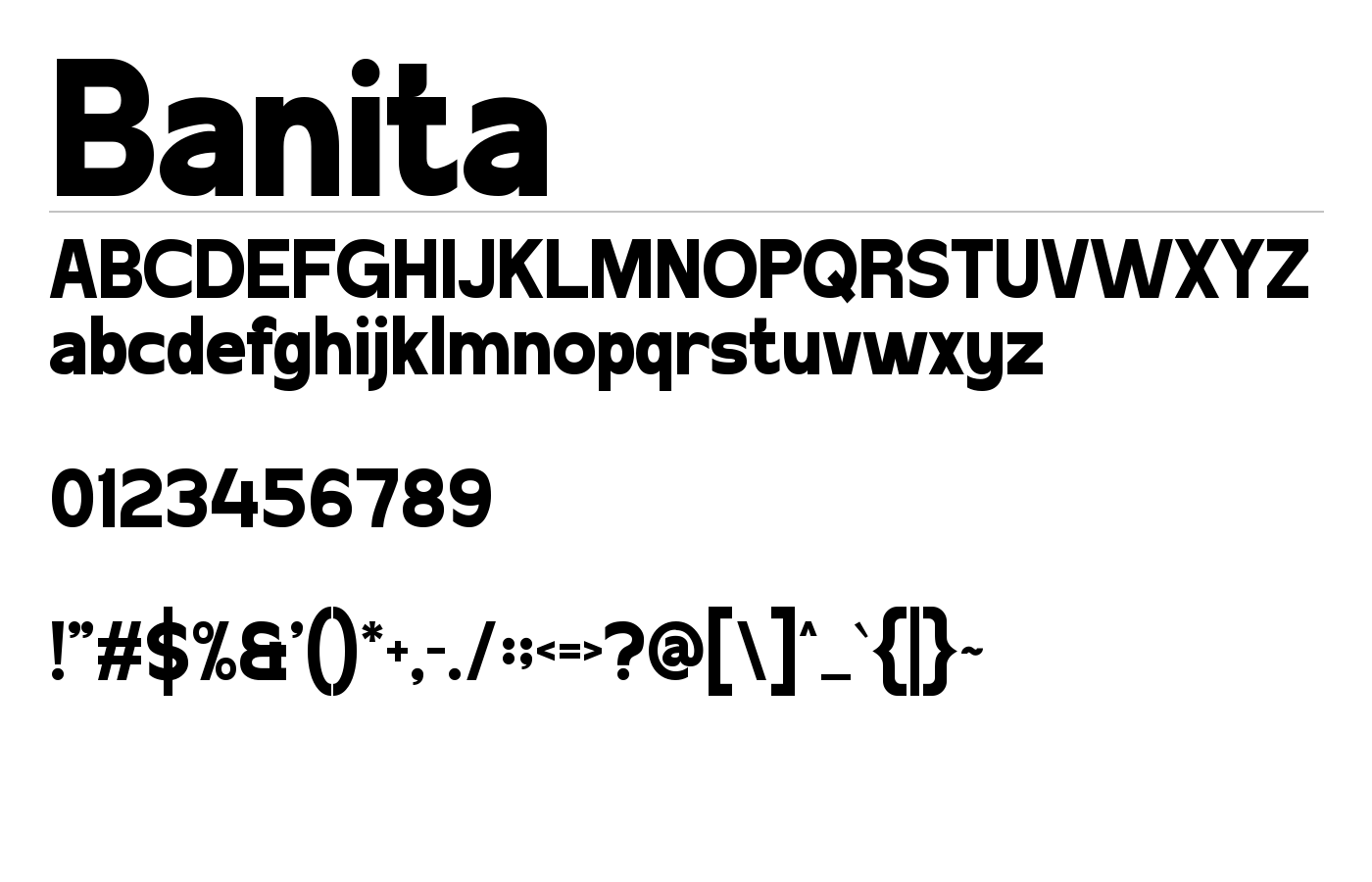
Banita is a bold, geometric sans serif font with a strong presence and clean, modern lines. Its balanced width and large x-height make it highly legible, while the sharp, straightforward shapes lend a professional, no-nonsense feel suitable for branding, headlines, and editorial use. This font works well for contemporary designs that require clarity and impact, such as logos and websites.
Banita Font